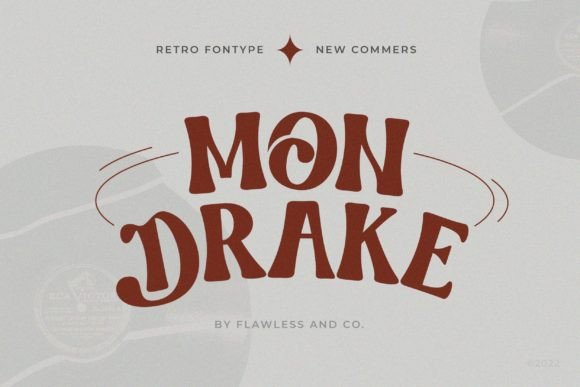
Step into the world of Mondrake Font, a captivating serif retro font that exudes a playful and bold aura. Its distinct style is perfectly suited for your creative endeavors, adding a touch of uniqueness to your designs. Whether you're working on poster designs, branding materials, t-shirts, business cards, logos, photography, or quotes, Mondrake Font will elevate your projects with a touch of timeless elegance.
Unleash your creativity and explore the realm of customization with Mondrake Font's alternate characters. These hidden gems allow you to add visual variety and depth to your designs, creating a truly captivating experience.
With Mondrake Font, you'll discover a font that's both versatile and easy to use. Its PUA encoding ensures effortless access to all glyphs and swashes, making it a breeze to incorporate intricate details into your projects.
Embrace the beauty of Mondrake Font and embark on a creative journey like no other. Its enchanting style will leave a lasting impression on your audience, making your designs stand out from the crowd.